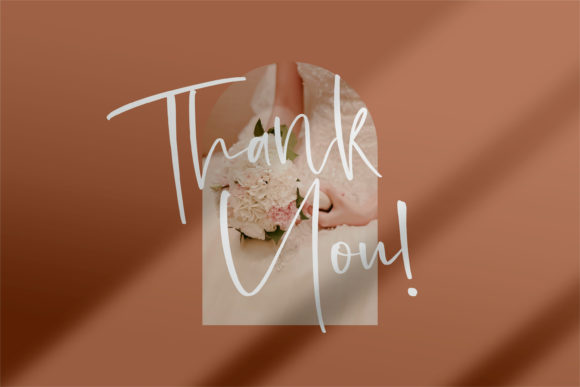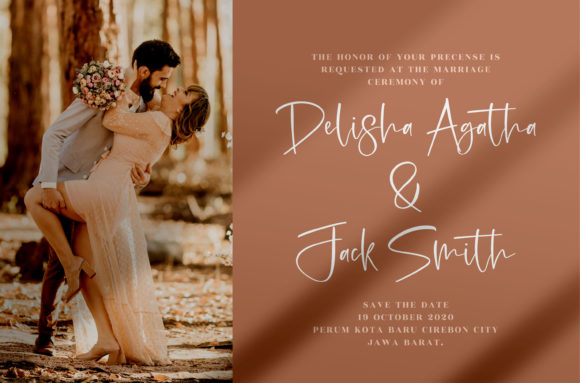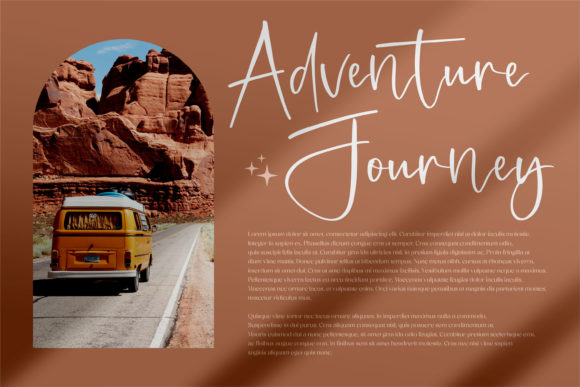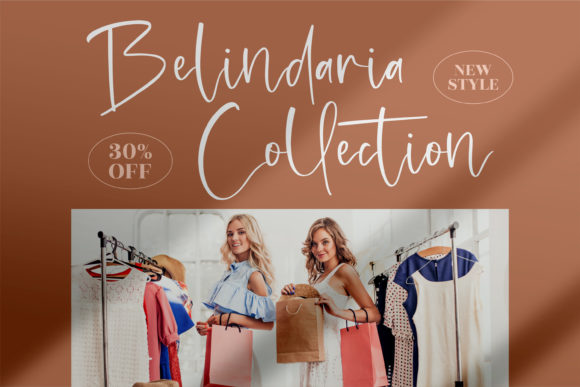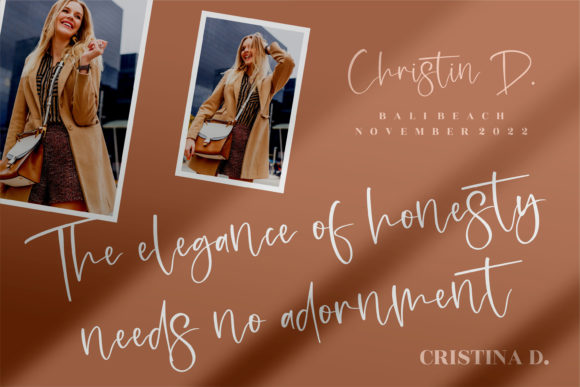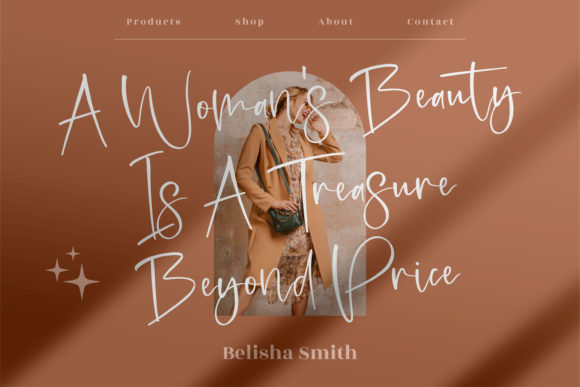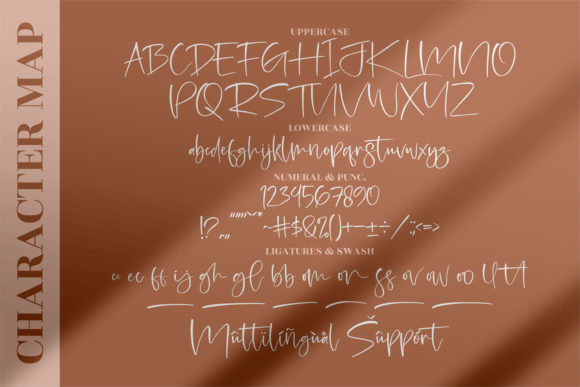
Jhollie Elisha Font
About Jhollie Elisha Font
Jhollie Elisha is a stylish and elegant script font. Fall for its ravishing style and use it to create gorgeous wedding invitations, beautiful stationary art, eye-catching social media posts, and much more!